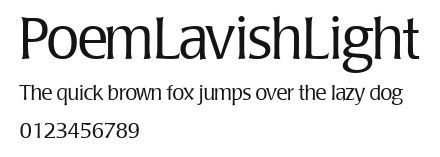
PoemLavishLight.ttf is a modern, elegant sans-serif font designed for ultimate readability and visual harmony. Perfect for branding, headlines, web design, and print materials.